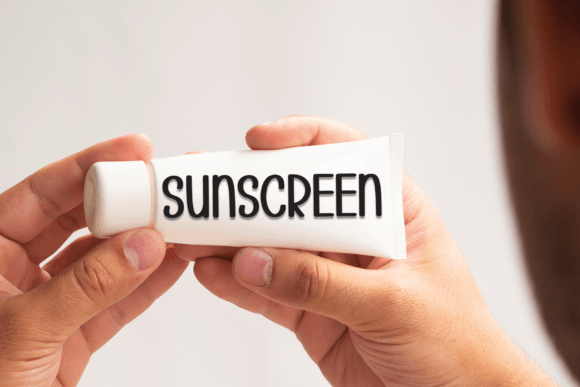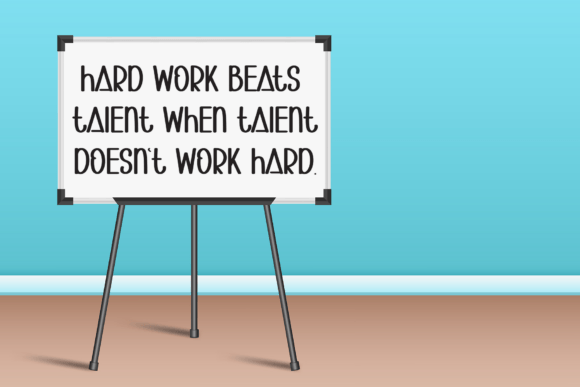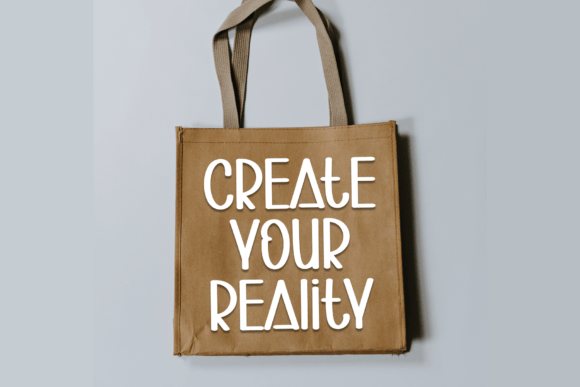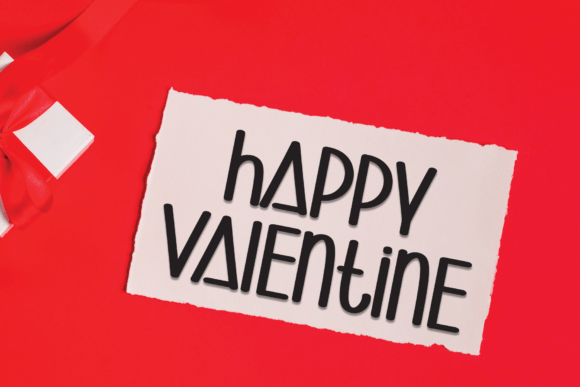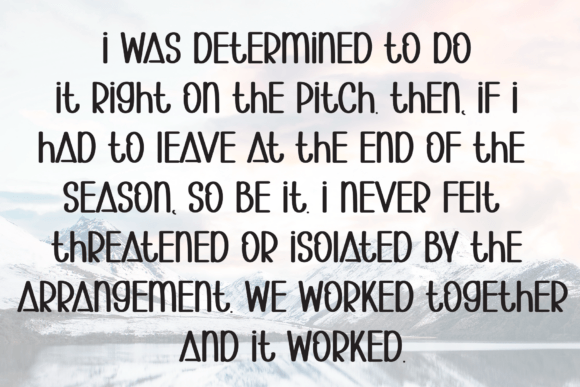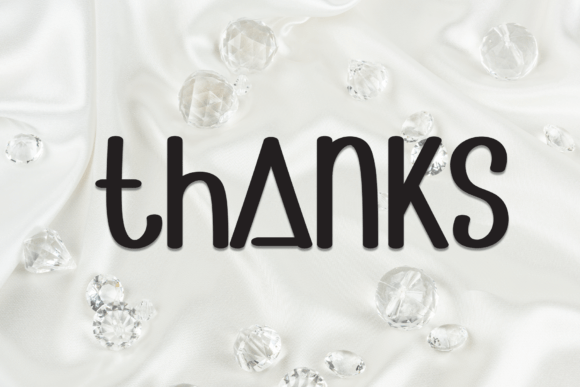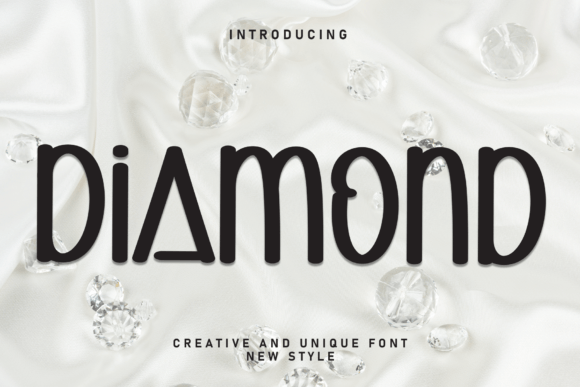
Diamond Font: Add a Touch of Whimsy to Your Designs
Are you looking for a font that can add a dash of personality to your designs? Look no further than the charming Diamond Font! This handwritten display font is designed to bring a sense of sweetness and friendliness to your projects, making it perfect for a wide range of applications.
A Font that Speaks to the Heart
Diamond Font is more than just a collection of letters – it’s a way to convey emotion and connect with your audience on a deeper level. With its cute and lively essence, this font is ideal for crafting enchanting wedding invitations, heartfelt cards, or any design project that seeks to sprinkle a bit of fun. Whether you’re a designer, crafter, or DIY enthusiast, Diamond Font is sure to become your go-to choice for adding a touch of whimsy to your creations.
What Makes Diamond Font Special?
So, what sets Diamond Font apart from other fonts out there? Here are just a few features that make it truly special:
- Handwritten with love: Diamond Font is a handwritten display font that carries a sense of warmth and personality. Each letter is carefully crafted to convey a sense of friendliness and approachability.
- Cute and lively essence: This font has a playful, energetic vibe that’s perfect for designs that need a bit of sparkle and shine.
- Perfect for creative projects: Whether you’re working on a wedding invitation, greeting card, or DIY craft, Diamond Font is the perfect choice for adding a touch of personality to your design.
Use Diamond Font to Brighten Up Your Designs
Diamond Font is the perfect way to add a dash of color and personality to your designs. With its charming and personable vibe, this font is sure to leave a lasting impression on your audience. Here are just a few ideas for using Diamond Font in your designs:
- Wedding invitations: Make your wedding invitation stand out with a font that’s as sweet as you are. Diamond Font is perfect for creating beautiful, one-of-a-kind wedding invitations that will set the tone for your special day.
- Greeting cards: Add a touch of personality to your greeting cards with Diamond Font. Whether you’re creating a birthday card, thank-you card, or holiday card, this font is sure to make your design pop.
- DIY crafts: Diamond Font is perfect for DIY enthusiasts who love to craft and create. Use this font to add a personal touch to your DIY projects, from scrapbooking to woodworking.
Why Designers and Crafters Love Diamond Font
Diamond Font has quickly become a favorite among designers and crafters, and it’s easy to see why. Here are just a few reasons why this font is a must-have for creative types:
- Easy to read: Despite its playful, handwritten vibe, Diamond Font is surprisingly easy to read. This makes it perfect for designs that need to convey a message, not just look pretty.
- Versatile: Diamond Font can be used in a wide range of applications, from digital designs to print projects. It’s also compatible with a variety of design software, making it easy to incorporate into your workflow.
- Unique: Let’s face it – there are a lot of fonts out there. But Diamond Font is truly one-of-a-kind. Its charming, personable vibe is sure to set your designs apart from the crowd.
Get Ready to Fall in Love with Diamond Font
In conclusion, Diamond Font is a charming and personable handwritten display font that’s perfect for designers, crafters, and DIY enthusiasts. With its cute and lively essence, this font is sure to add a touch of whimsy and personality to your designs. Whether you’re working on a wedding invitation, greeting card, or DIY project, Diamond Font is the perfect choice for adding a dash of color and fun to your creations.